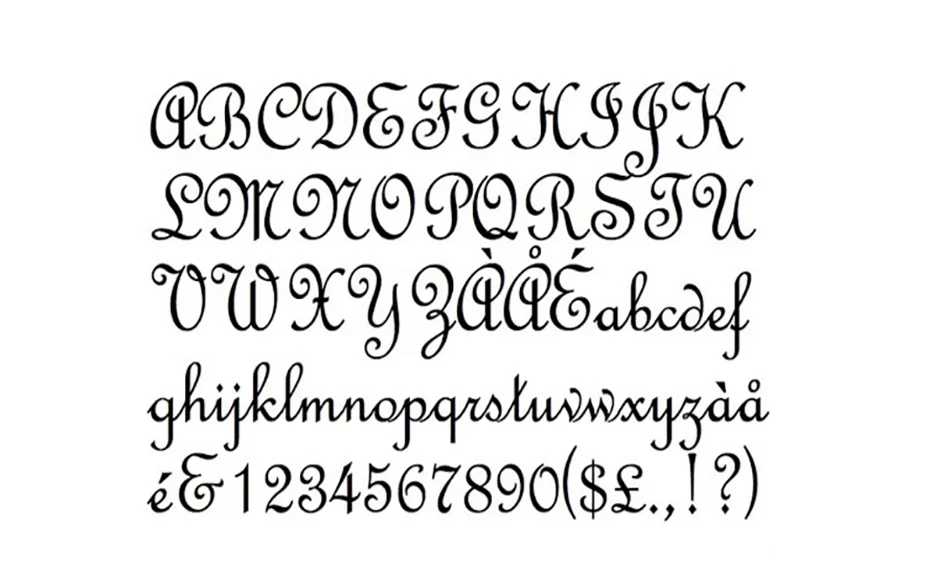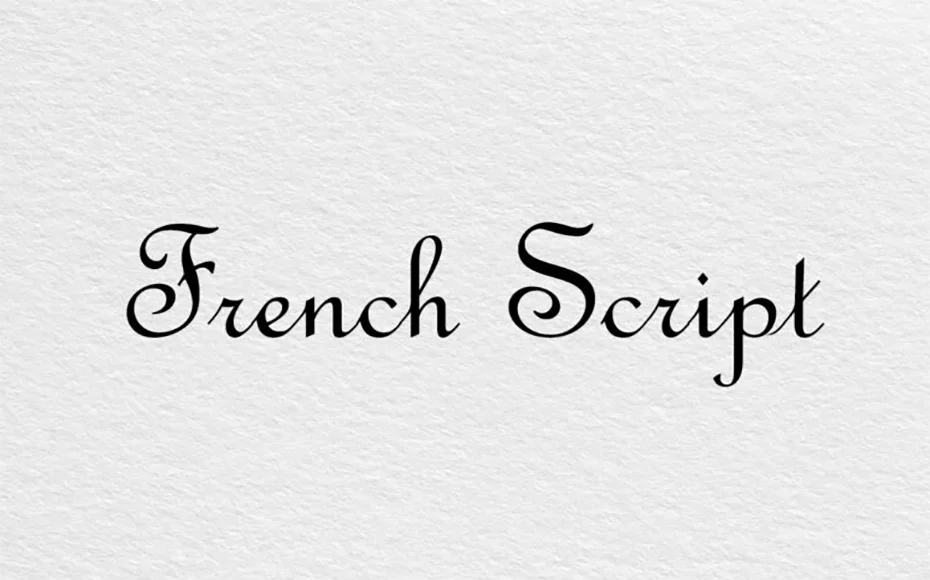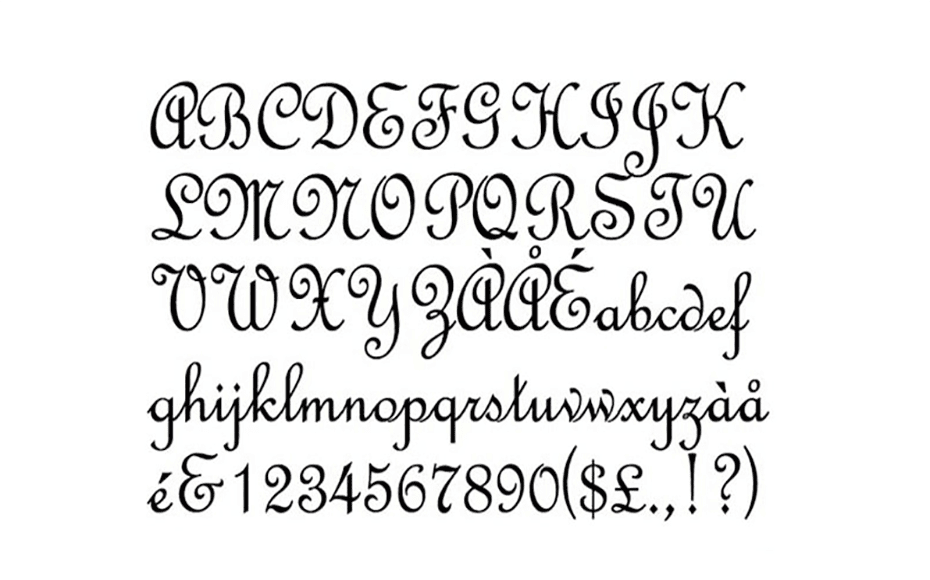
French Script Font is another modern script typeface that is fun and quirky to read and write with. The cute yet stylish font comes with multilingual and ligature support.
The Monotype Design Studio took the charge of sharing it for the first time. While Morris Fuller Benton is known as the primary designer of that font.
For creating this elegant font he took inspiration from rounded edges. And its curves and soft angles which connect the script is an attention-getter.
So, we say that it is really a beautiful choice for you because, with its help, you can definitely create high-quality designs easily.
The font can be fully adjusted to your needs and is a great choice for a wide range of projects like creating a banner, signature, unique emblems, special quotes, logo design, title, the headline on a poster or flyer, and many more.
This coolest font offers only a regular style along with 251 characters. Also, it has featured glyphs, punctuation marks, and currency signs as well.